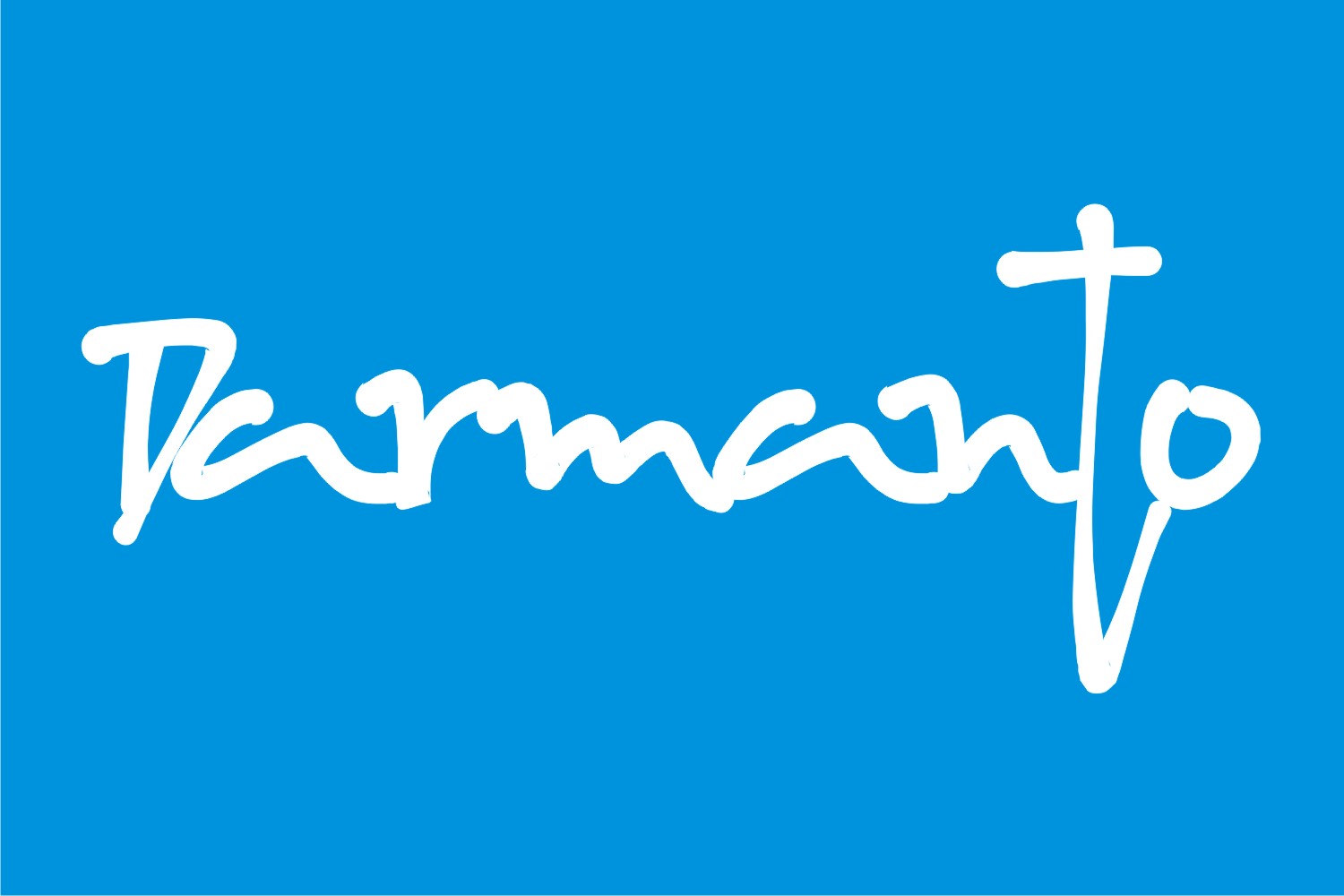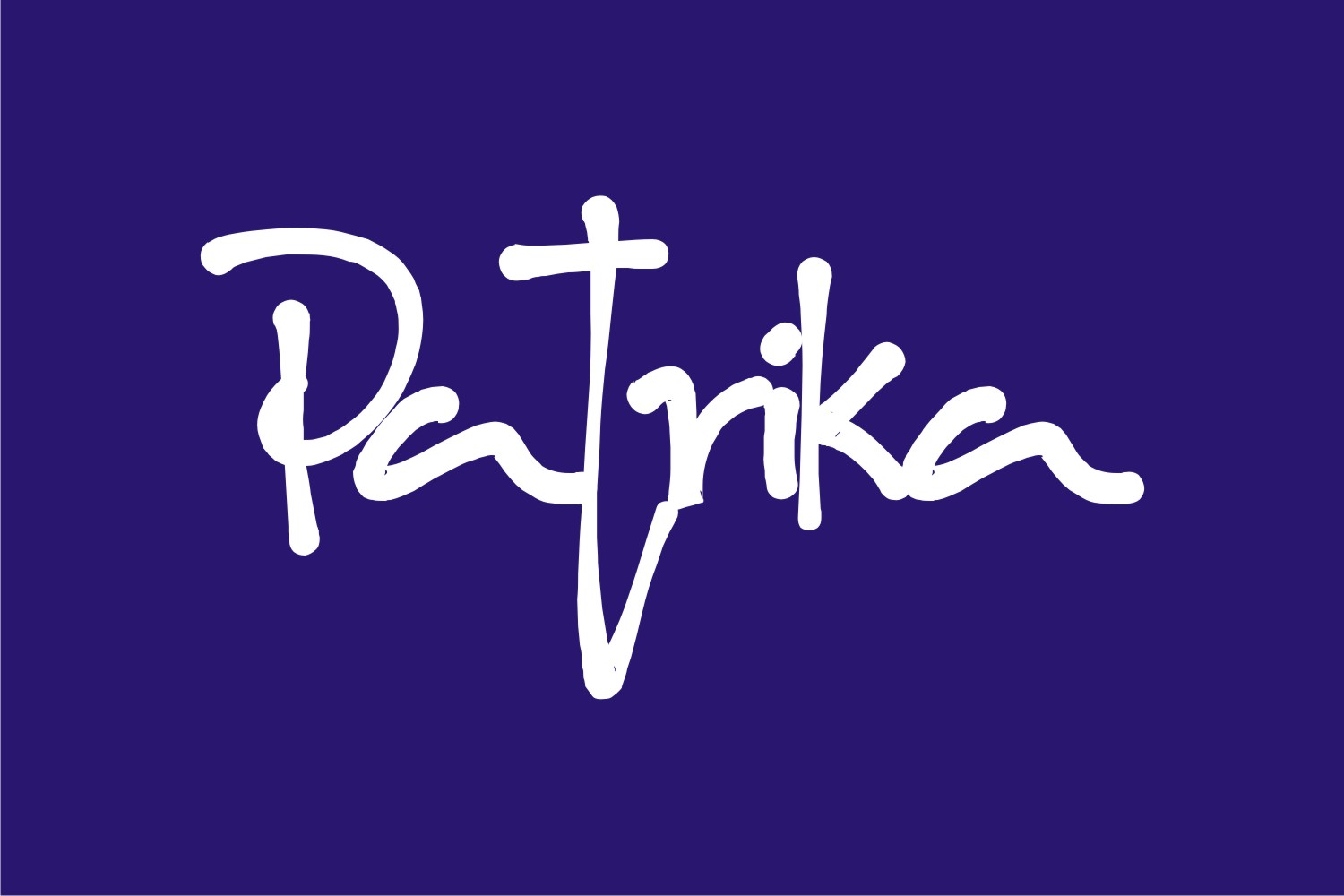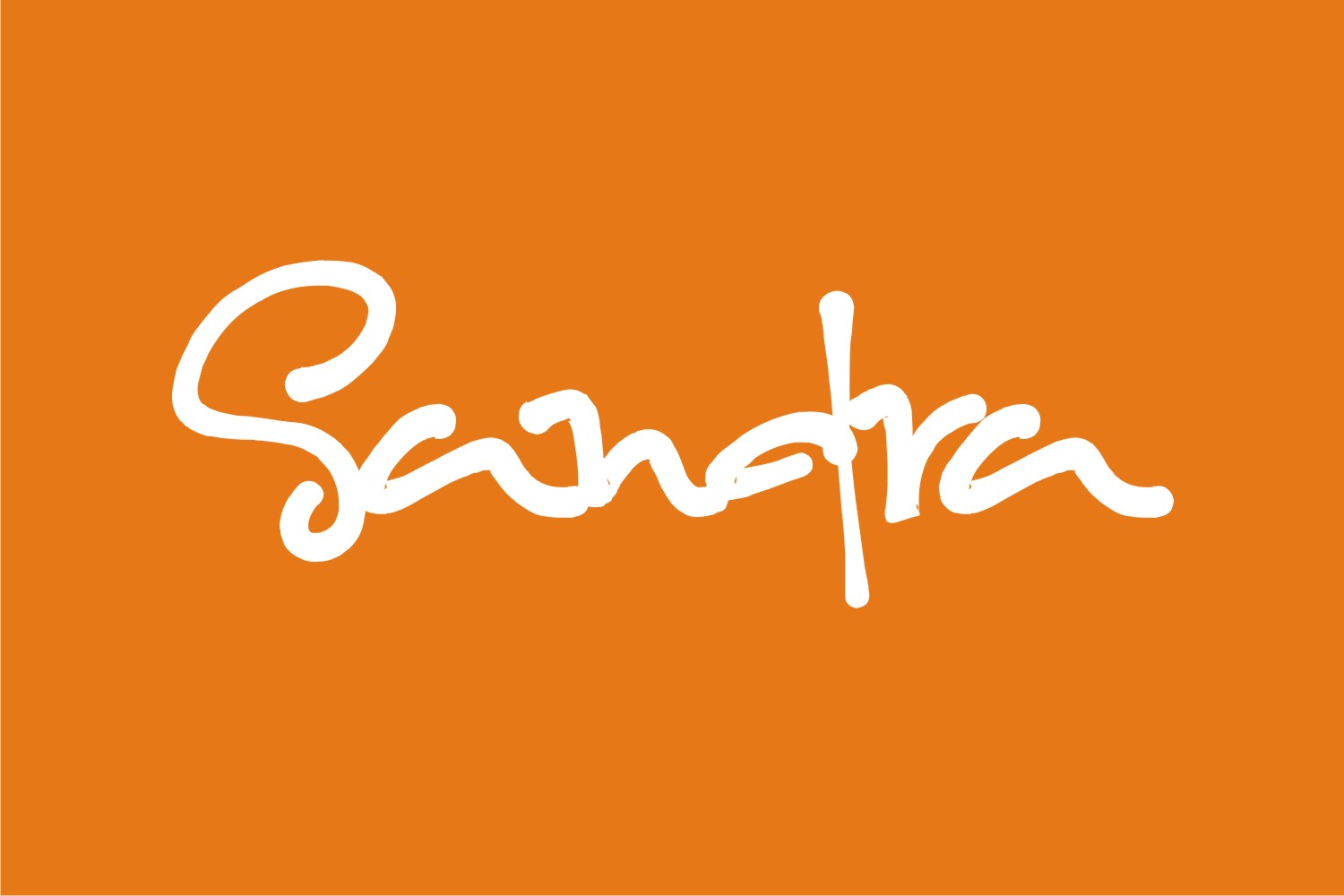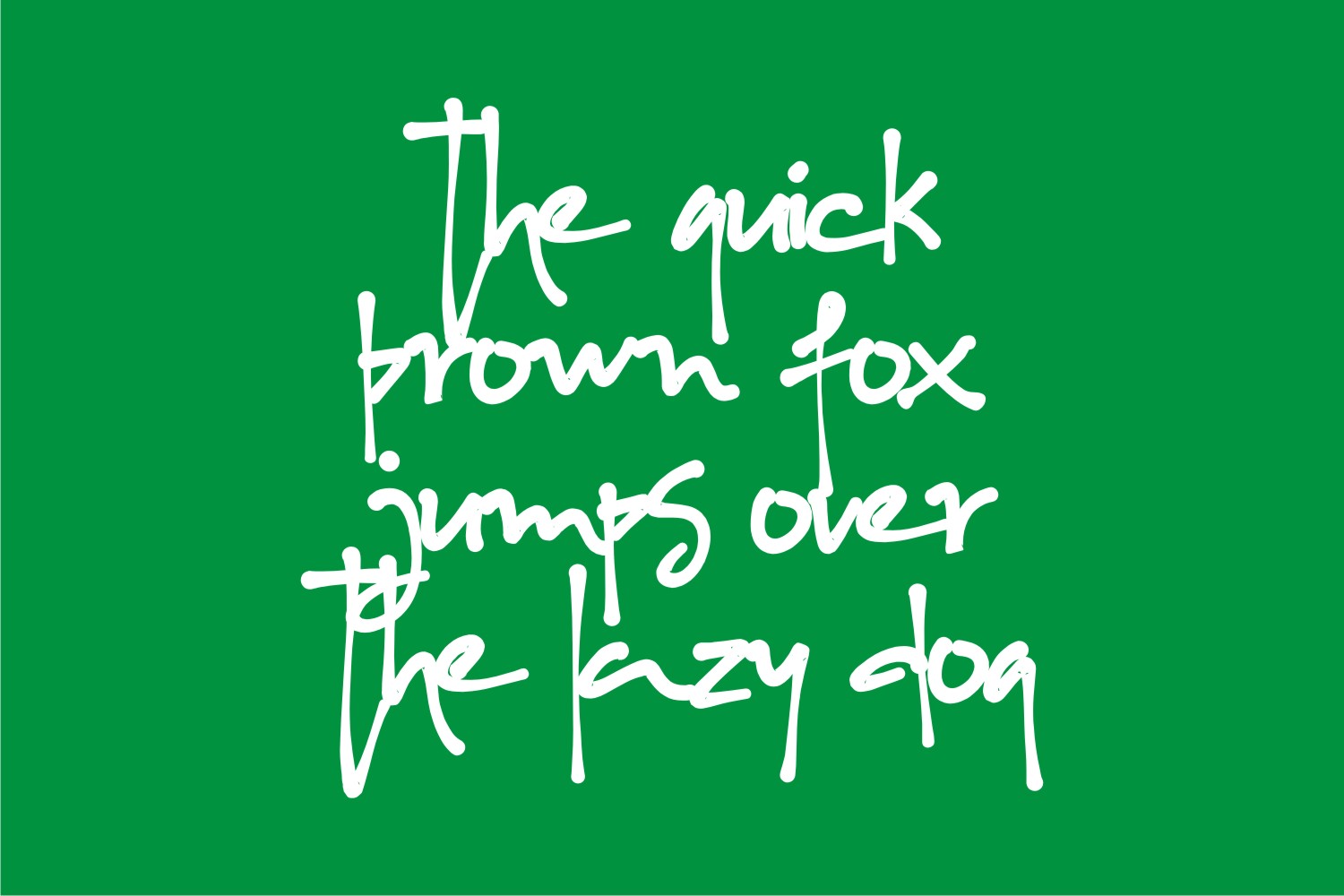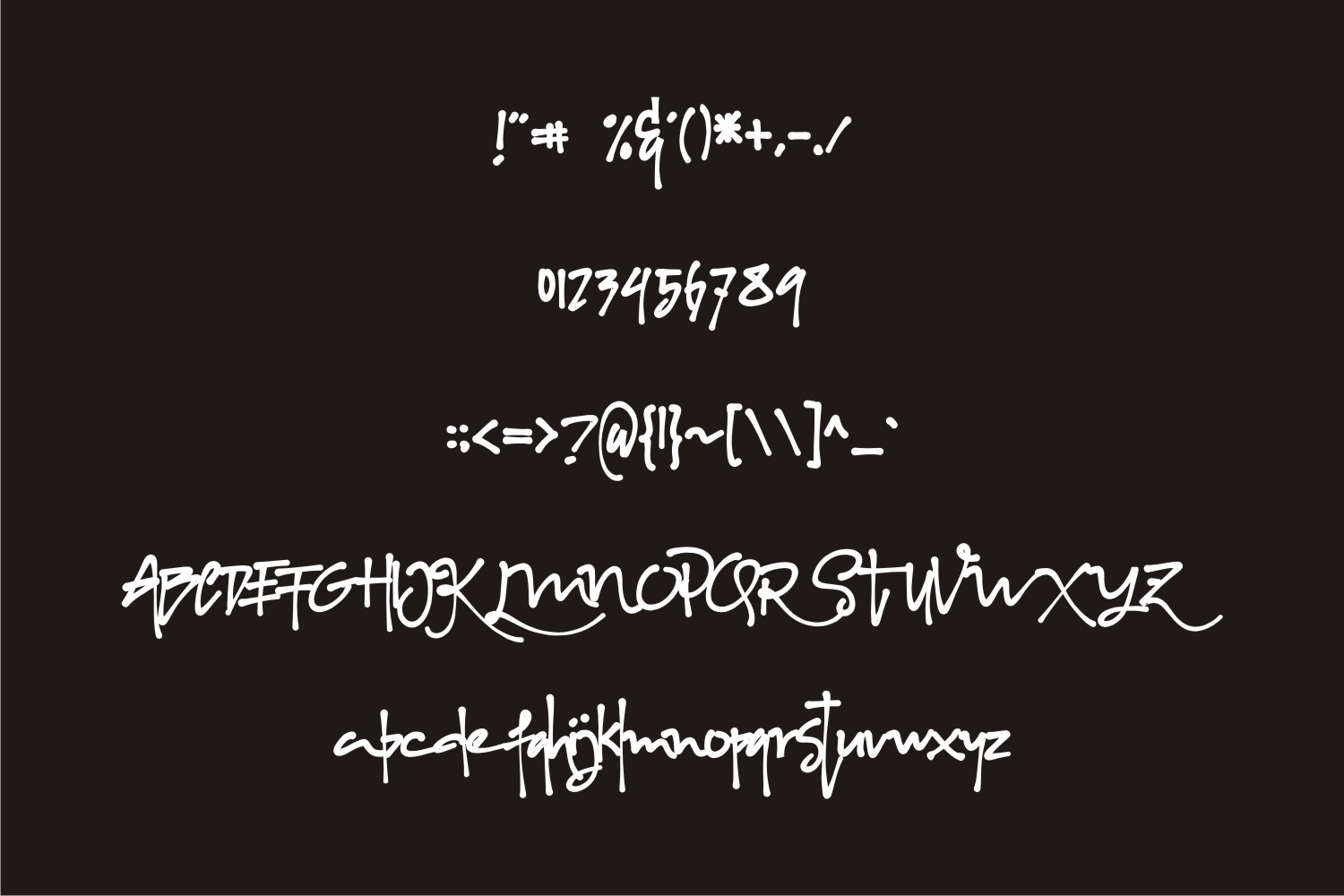
Albanian Font
About Albanian Font
Albanian is a fun yet casual script font with variable width and height. This is a great font option for displays, and can add some modernity and edge to your design projects.